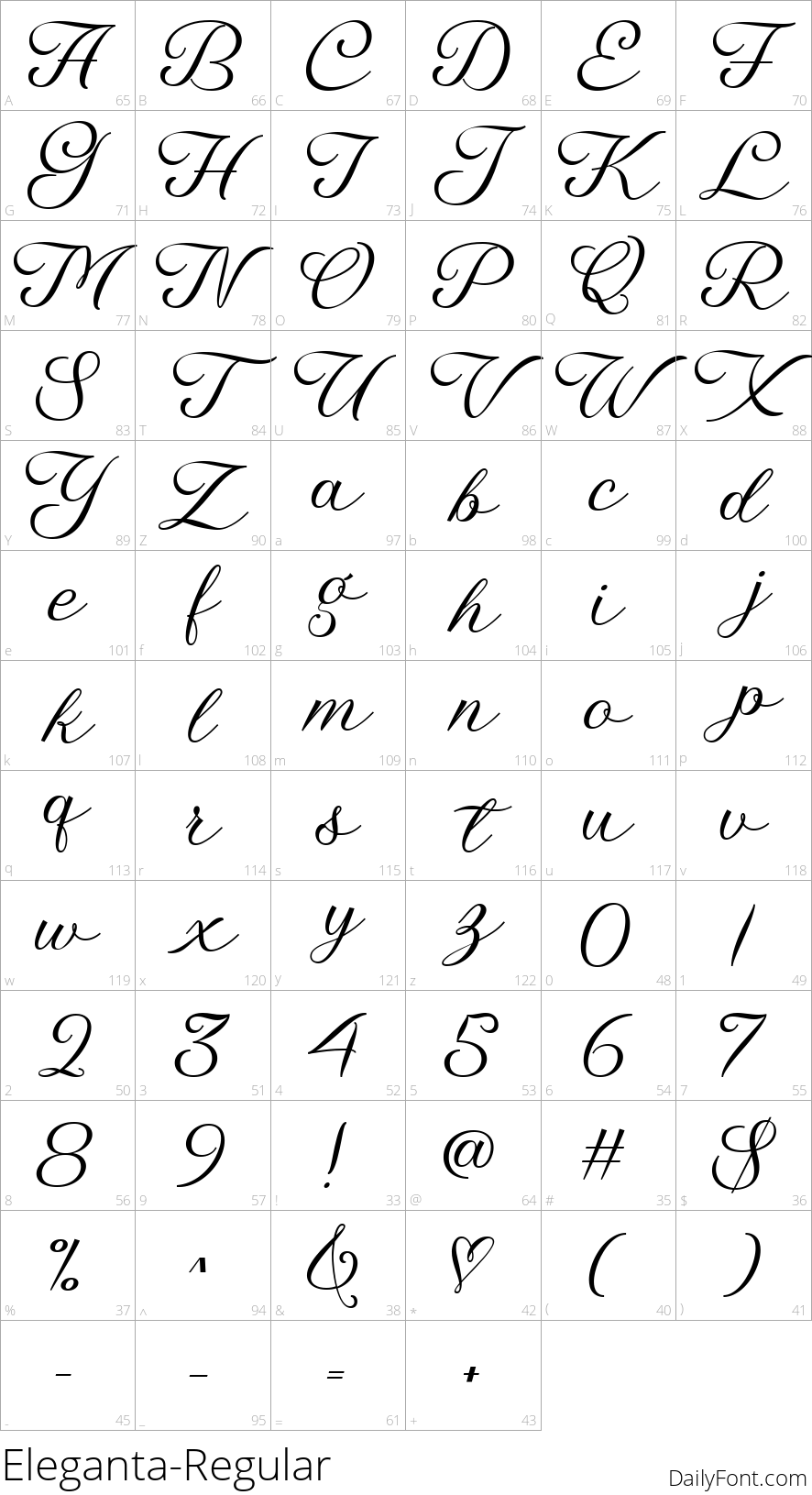
Eleganta Regular
Eleganta Regular is a stunning script font created by Misti's Fonts designed to capture the beauty and delicacy of elegant handwriting. The font features graceful, flowing lines and finely balanced curves that convey sophistication and romance. Each letter displays a beautiful, smooth transition between thin and thick strokes, contributing to the font’s polished appearance and making it ideal for a variety of formal and creative projects.
The uppercase letters of Eleganta Regular are particularly eye-catching, with lavish swirls and decorative elements that add a touch of opulence to each character. In contrast, the lowercase letters maintain a simpler, more restrained style, offering readability while still exuding charm and fluidity. The uniformity in the height of the letters ensures the text remains visually cohesive and well-organized.
Eleganta Regular includes numeric characters and punctuation marks that blend seamlessly with the alphabet, maintaining the font's sophisticated aesthetic throughout any written content. The digits are designed with the same meticulous attention to detail, featuring elegant curves and well-proportioned shapes that match the elegance of the letterforms. This font is perfect for wedding invitations, branding, menu designs, and other projects that require a touch of refinery and grace. The balanced weight and structured flow of the font lend versatility, ensuring it looks impressive both in display sizes and in body text.